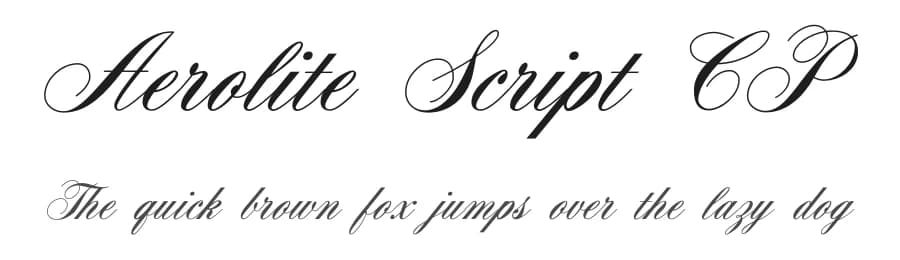
About Aerolite Script CP Font
Aerolite Script CP is a script & handwritten font designed by ClaudeP. It includes 145 glyphs, a medium weight, OTF (CFF) format, and 190 languages. Aerolite Script CP is free to download; check the license details on this page before commercial use. Script & handwritten fonts like Aerolite Script CP work best for wedding invitations, greeting cards, signatures, and elegant branding.
Aerolite Script CP Font is a script font that shines as a display or heading face. Pair it with a clean sans-serif or serif font for body text β the contrast creates a clear hierarchy while the two styles stay balanced and easy to read.
Aerolite Script CP Font
by ClaudeP
Aerolite Script CP Font is a script handwritten typeface by ClaudeP, ideal for logos, invitations, branding, and creative projects.